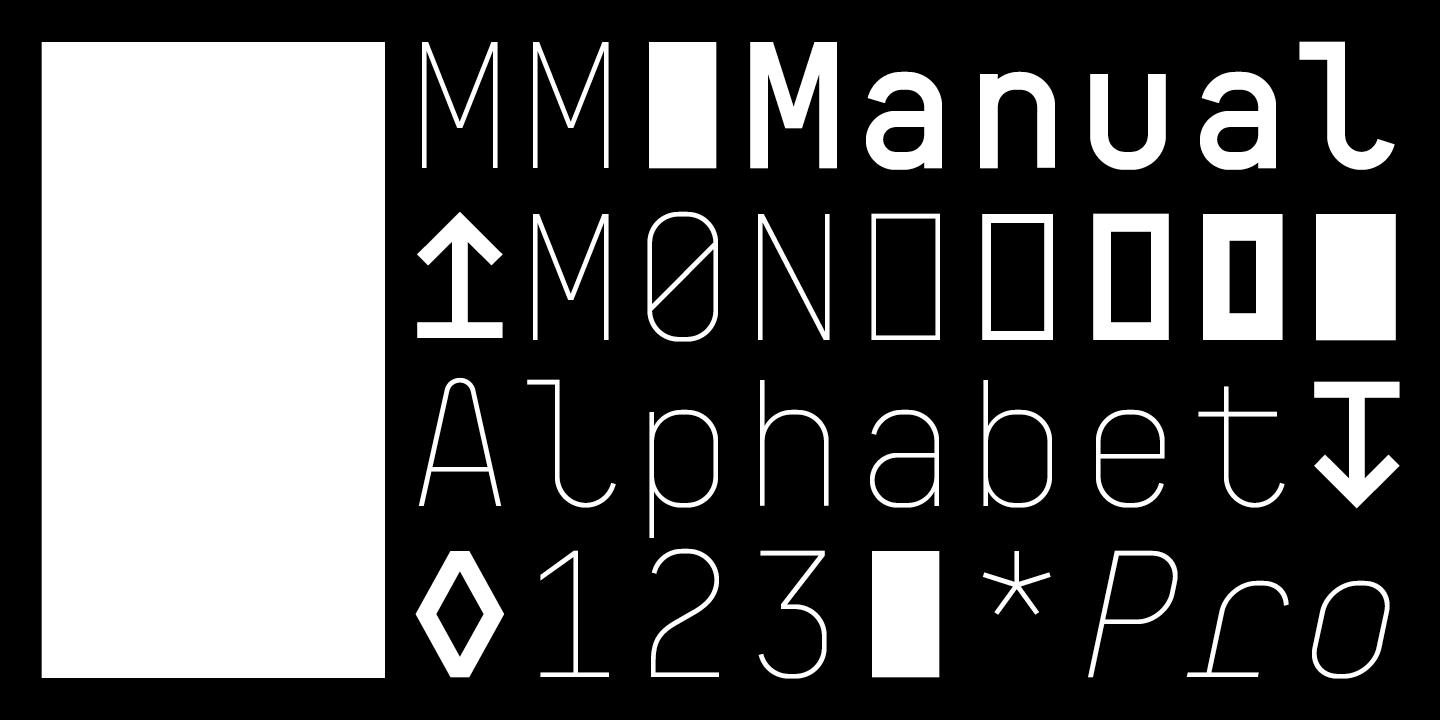
Looking to equip your designs with a typeface that’s both technically precise and aesthetically clean? BB Manual Mono (Pro) Font Free Download offers an excellent opportunity to explore a modern monospaced font. It's crucial to remember, however, that while a BB Manual Mono (Pro) Font Free Download might be available for personal and testing purposes, a commercial license is strictly required for any professional or revenue-generating projects. This ensures legal compliance and provides essential support to the talented font designers.
The BB Manual Mono (Pro) Font is exceptionally well-suited for projects that demand clarity, order, and a minimalist aesthetic. Its monospaced design, where every character occupies the same horizontal space, makes it an ideal choice for coding environments, technical documentation, and data visualization. It's perfect for user interfaces, terminal emulators, and programming tutorials, ensuring consistent alignment and readability. Furthermore, consider BB Manual Mono (Pro) Font for branding for tech companies, innovative startups, and educational platforms where precision and a contemporary, no-nonsense look are desired. Its clean lines and uniform spacing also make it excellent for financial reports and tabular data presentation.
What makes the BB Manual Mono (Pro) Font so exciting is its ability to convey both functional efficiency and subtle design sophistication. It often features well-defined letterforms and a balanced rhythm that makes reading code or data streams less fatiguing. This characteristic allows it to communicate a sense of reliability, clarity, and modern professionalism, making your message resonate with an audience that values accuracy and streamlined aesthetics. It’s a font that doesn't just display text; it organizes information, adding a layer of controlled precision and contemporary appeal to any creative endeavor. Its distinctive aesthetic ensures your work will appear competent, orderly, and highly effective.
The BB Manual Mono (Pro) Font family typically boasts a comprehensive range of weights to maximize its utility for various coding and design needs. You'll often find a wide selection, from Thin and Light to Regular, Medium, SemiBold, and Bold, usually accompanied by corresponding italic styles. More advanced versions might also include specific alternates for frequently confused characters (like '0' and 'O', 'l' and '1') to enhance clarity in coding environments, providing unparalleled flexibility for developers and designers alike.